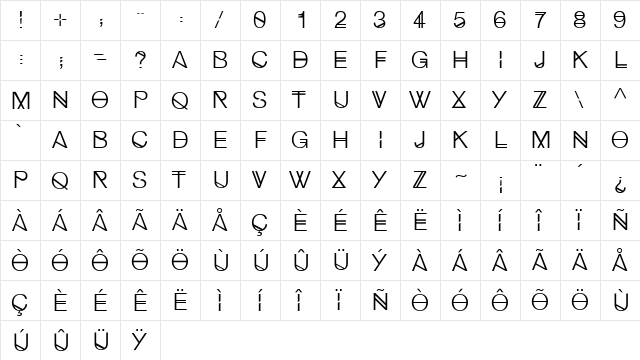
Hipstelvetica Light
| Foundry | JosΠFilipe Gomes |
| Designer | JosΠFilipe Gomes |
Design Context for Hipstelvetica Typeface
Hipstelvetica offers clean, dependable letterforms without strong stylistic allegiance, making it a practical choice for designers who need flexibility. The delicate stroke weight brings airiness and refinement to layouts.